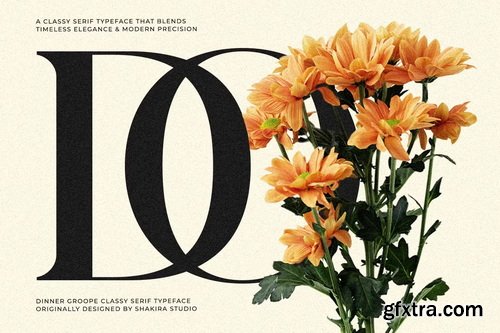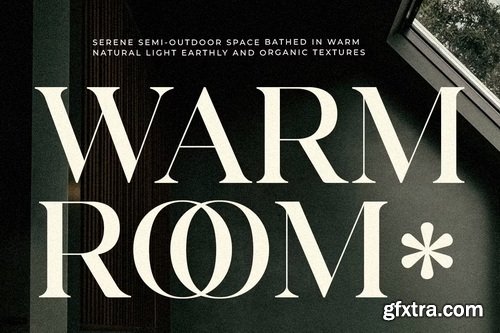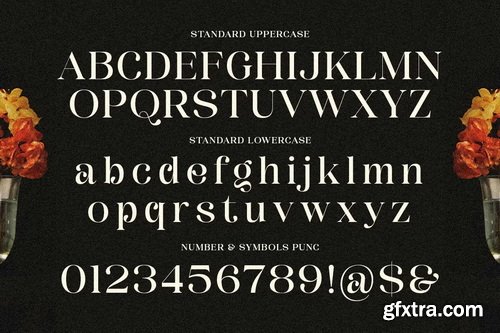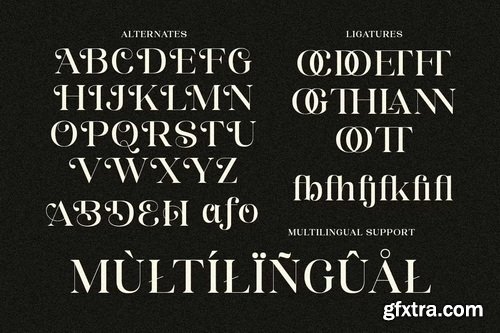
CreativeMarket - Dinner Grope Classy Display Serif
- Its beautifully exaggerated serifs and subtle decorative curves bring out a bold personality that’s elegant yet experimental. Perfect for those who design with taste and confidence. Whether you're crafting a brand that demands sophistication or designing editorial work that speaks prestige, Dinner Grope brings that upscale visual presence. This typeface blends seamlessly in creative directions that require both expressive flair and classic readability.